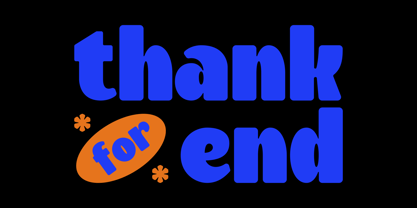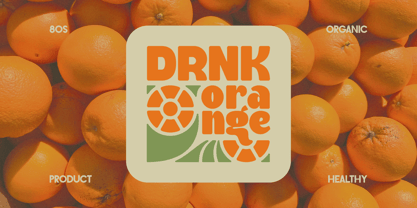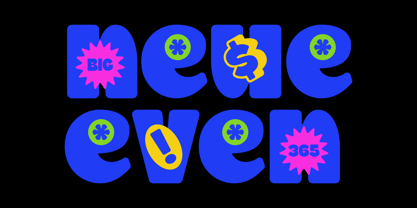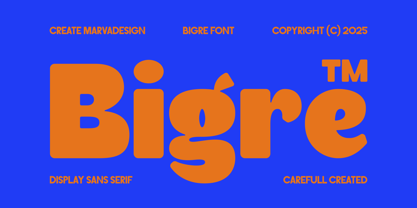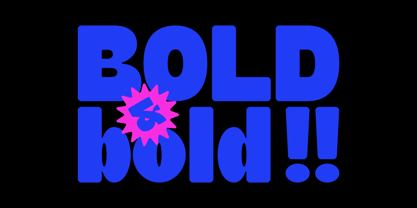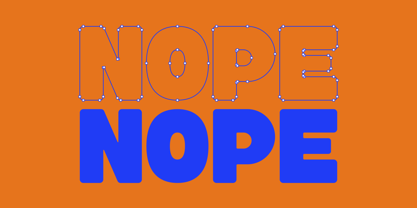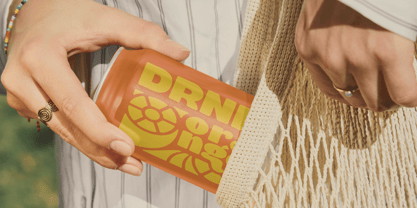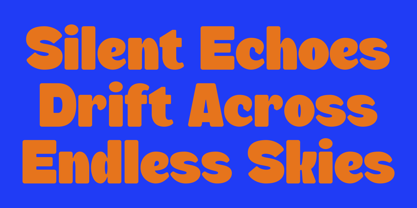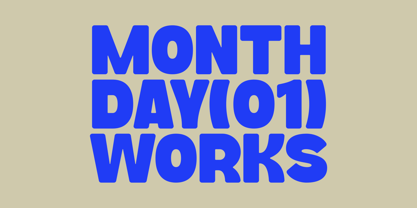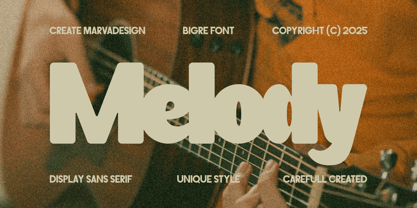
Bigre
by Marvadesign
The Bigre Font Family was designed by Febrie Setiawan and published by Marvadesign. Bigre contains 1 styles. More about this family
Bigre is a contemporary display sans serif typeface that takes its name from the fusion of “Big” and “Ogre,” reflecting its massive presence and bold personality. With oversized proportions, smooth curves, and playful quirks, Bigre balances power with a sense of fun. Each letterform is carefully crafted to evoke a chunky, almost monstrous strength while still retaining a friendly and approachable charm. The exaggerated terminals and rounded counters contribute to its unique character, making it stand out from conventional geometric sans serifs.
This font is designed for visual impact, thriving in large-scale applications such as posters, billboards, editorial headlines, and branding identities that seek to be both memorable and distinctive. Its heavy weight ensures visibility from afar, while the subtle whimsical details add a layer of originality that prevents it from feeling rigid or overly serious. Bigre celebrates boldness and creativity, embodying the spirit of design that dares to be loud, playful, and unapologetically expressive.
Designers: Febrie Setiawan
Foundry: Marvadesign